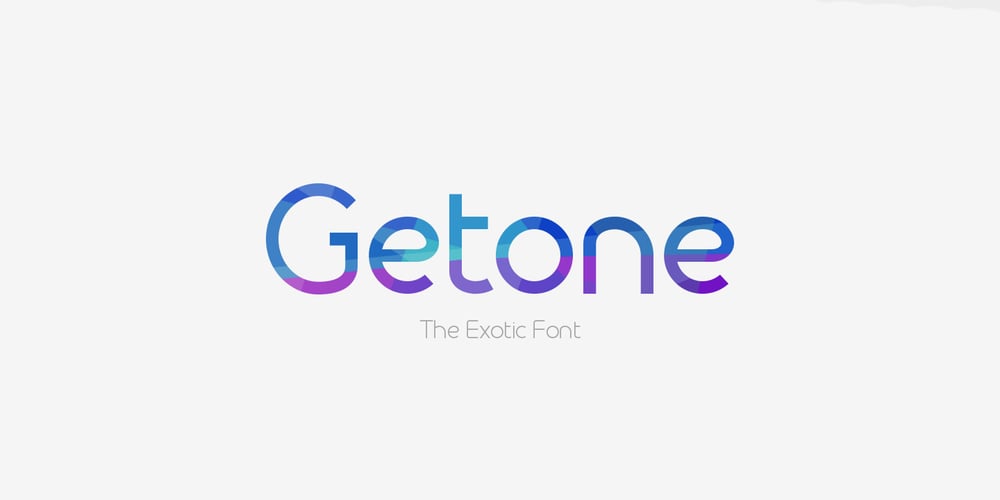
Getone
Getone font
Getone Font Family was designed by Robert Corseanschi and published by Robert Corseanschi. Getone contains 10 styles and family package options. Getone is an exotic font, based on the Sereno font made by the same designer. It has a modern touch which makes it to stand out, all the glyphs are designed “out of the box” to combine each other in harmonious way. Getone is coming in ten styles : thin, ultra light, light, regular, bold and italics. Is ideally suited for advertising and packaging, festive occasions, editorial and publishing, logo, branding and creative industries, poster and billboards as well as web and screen design.